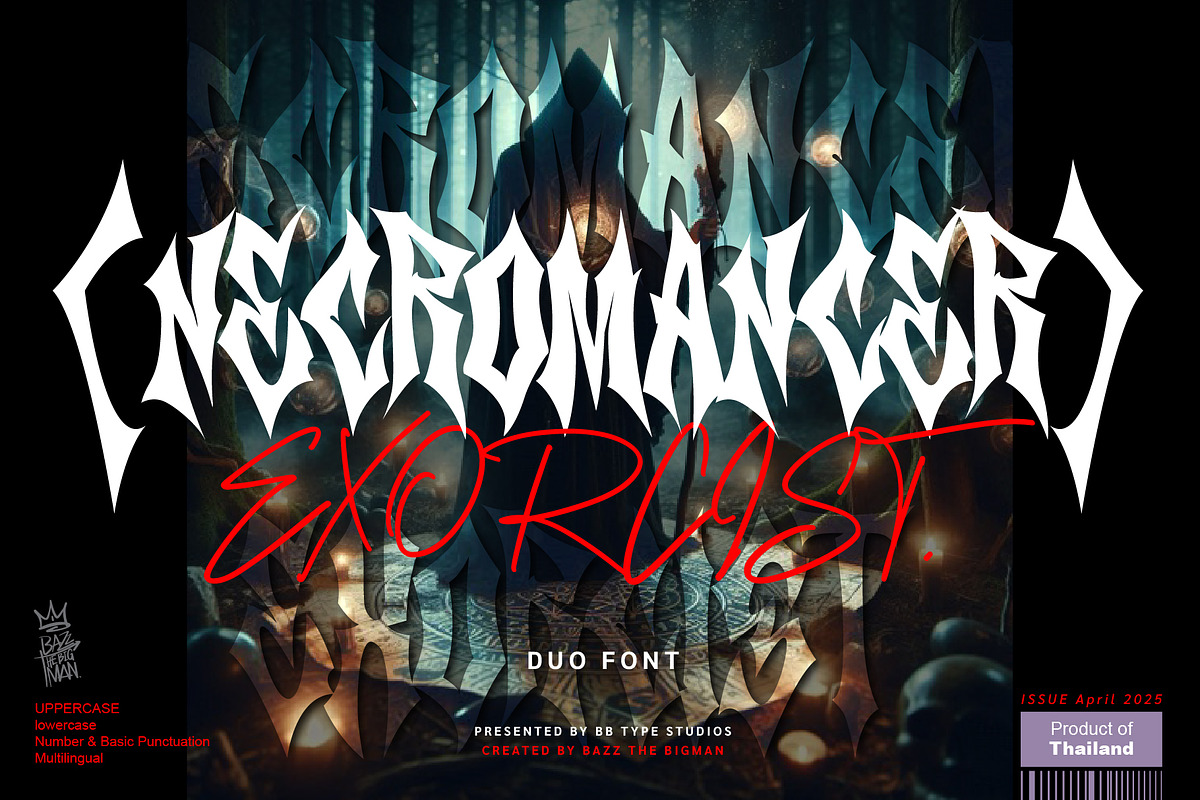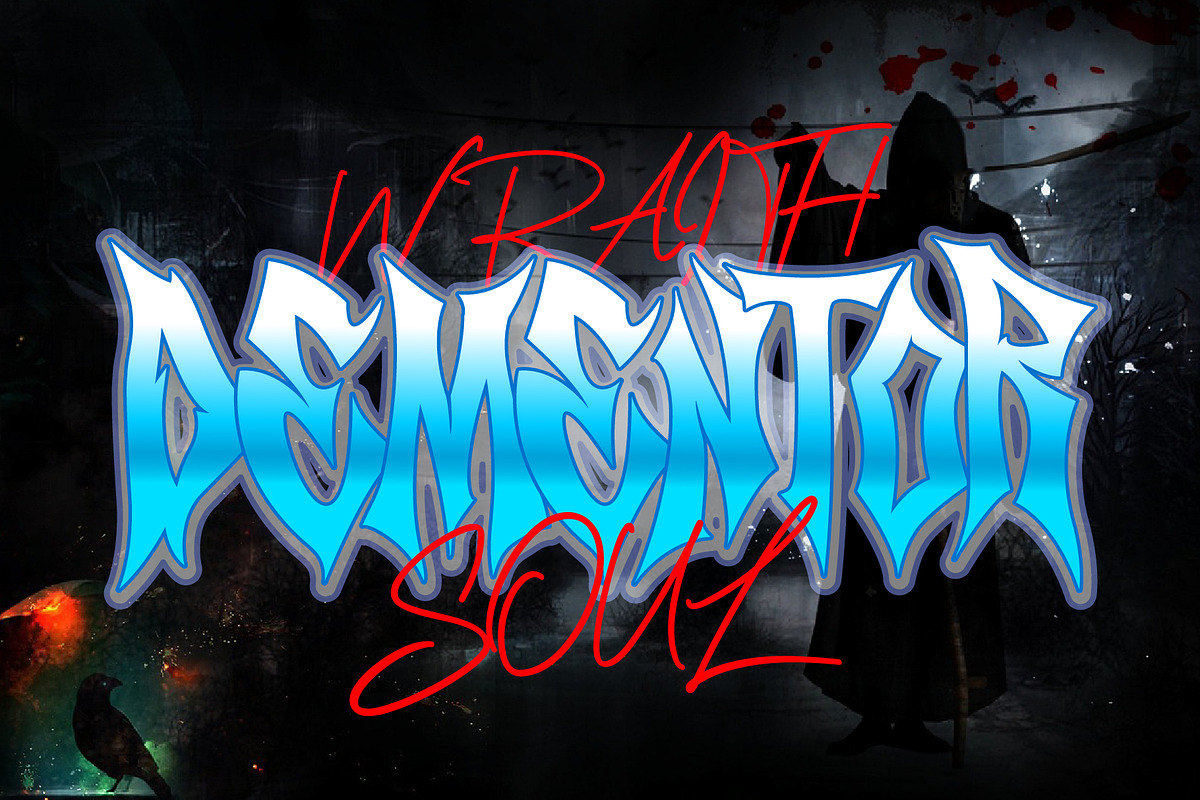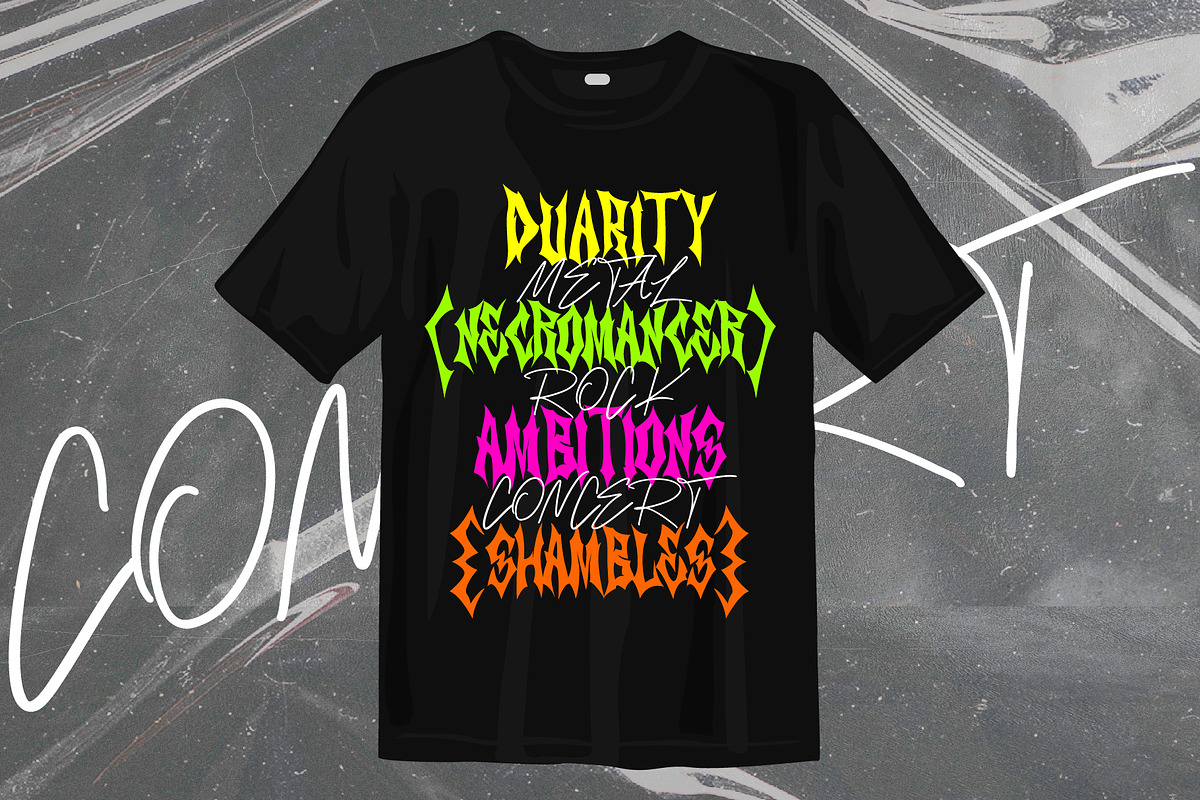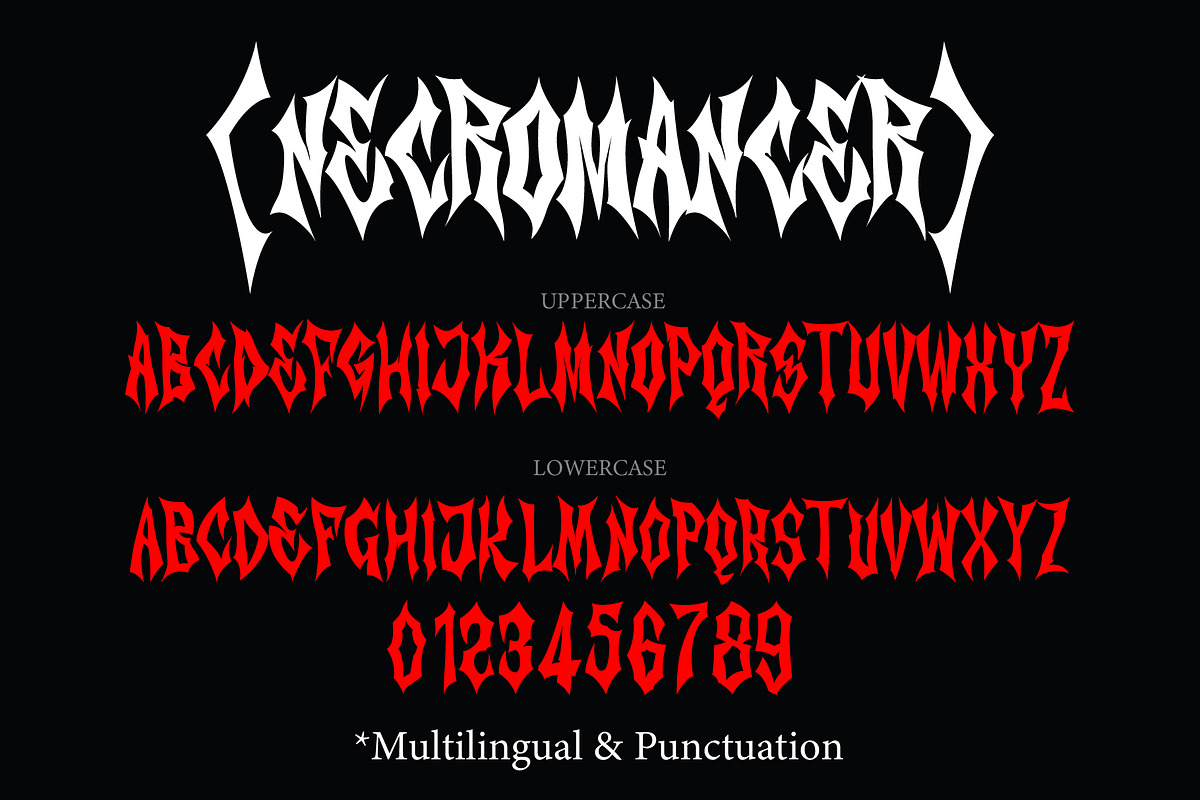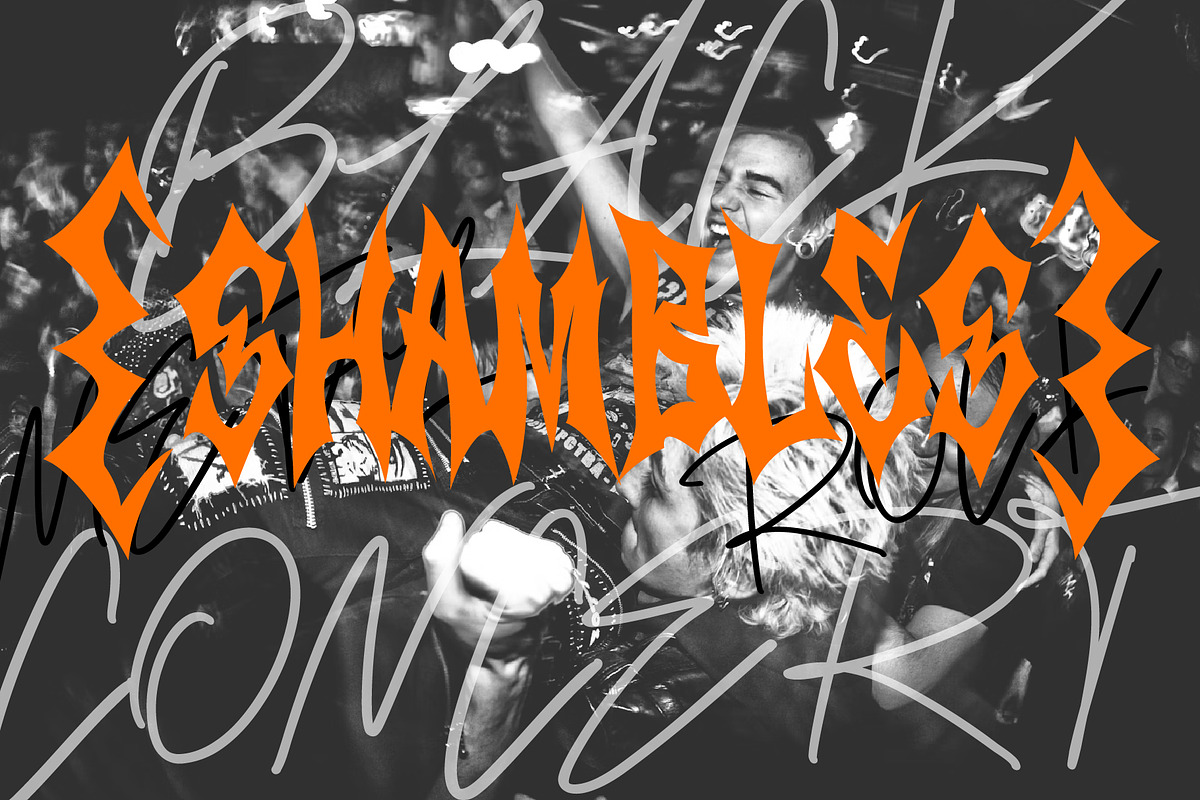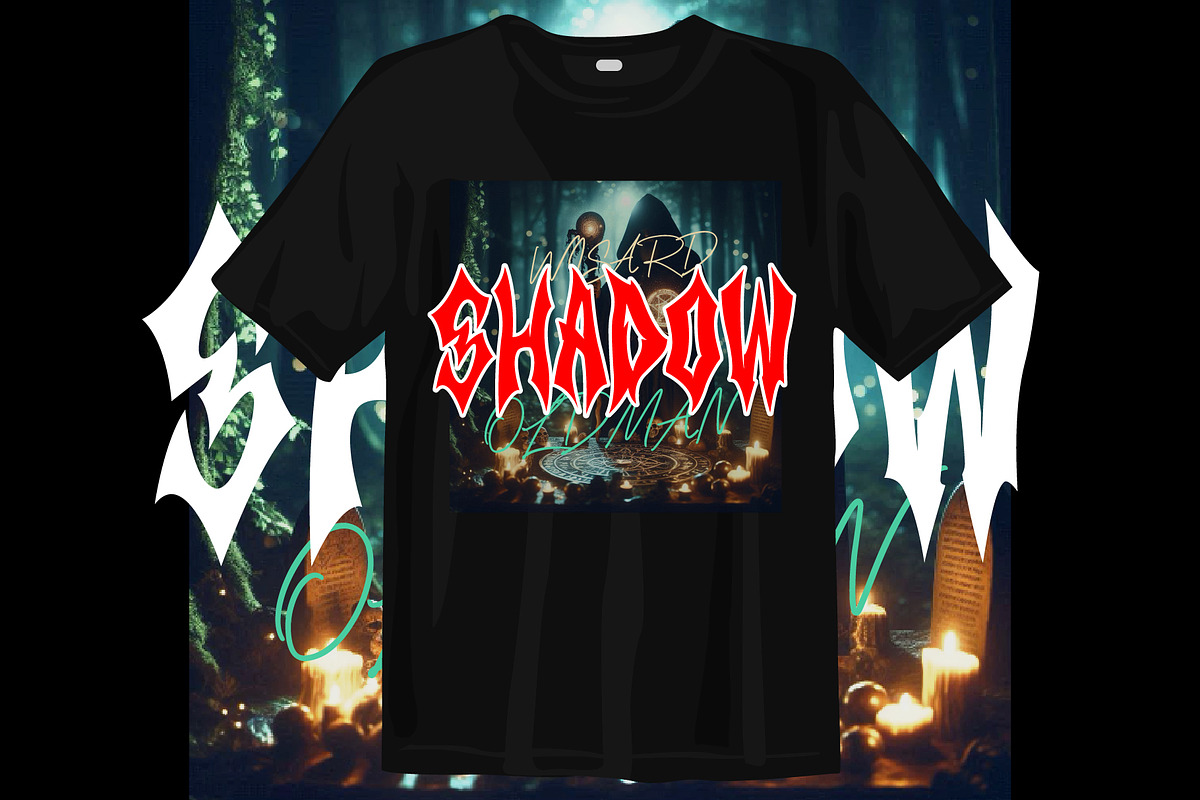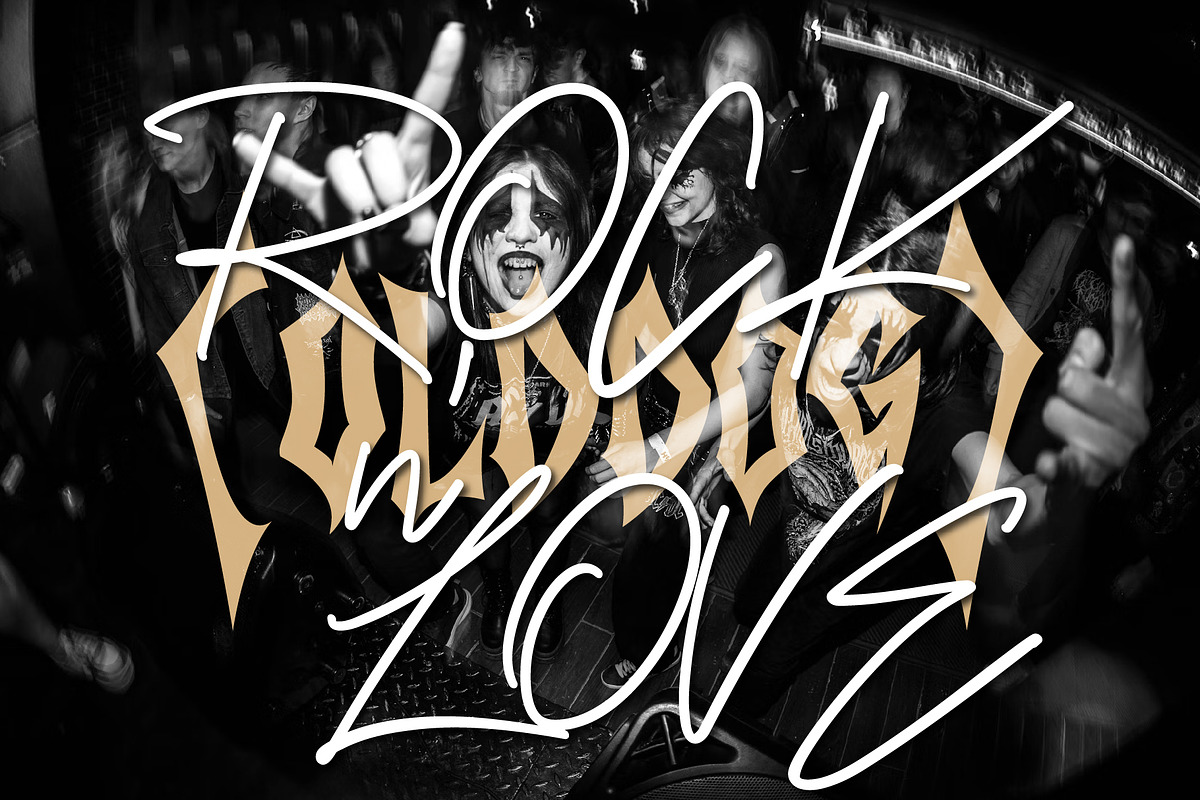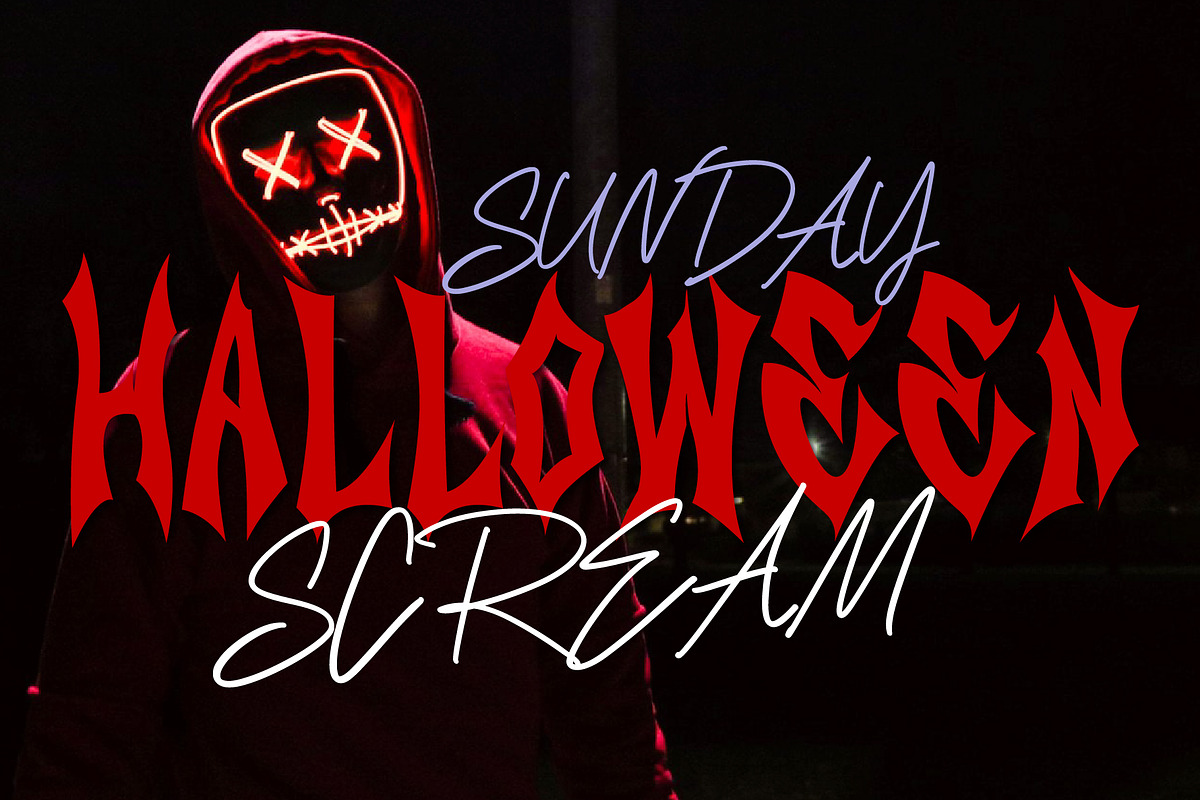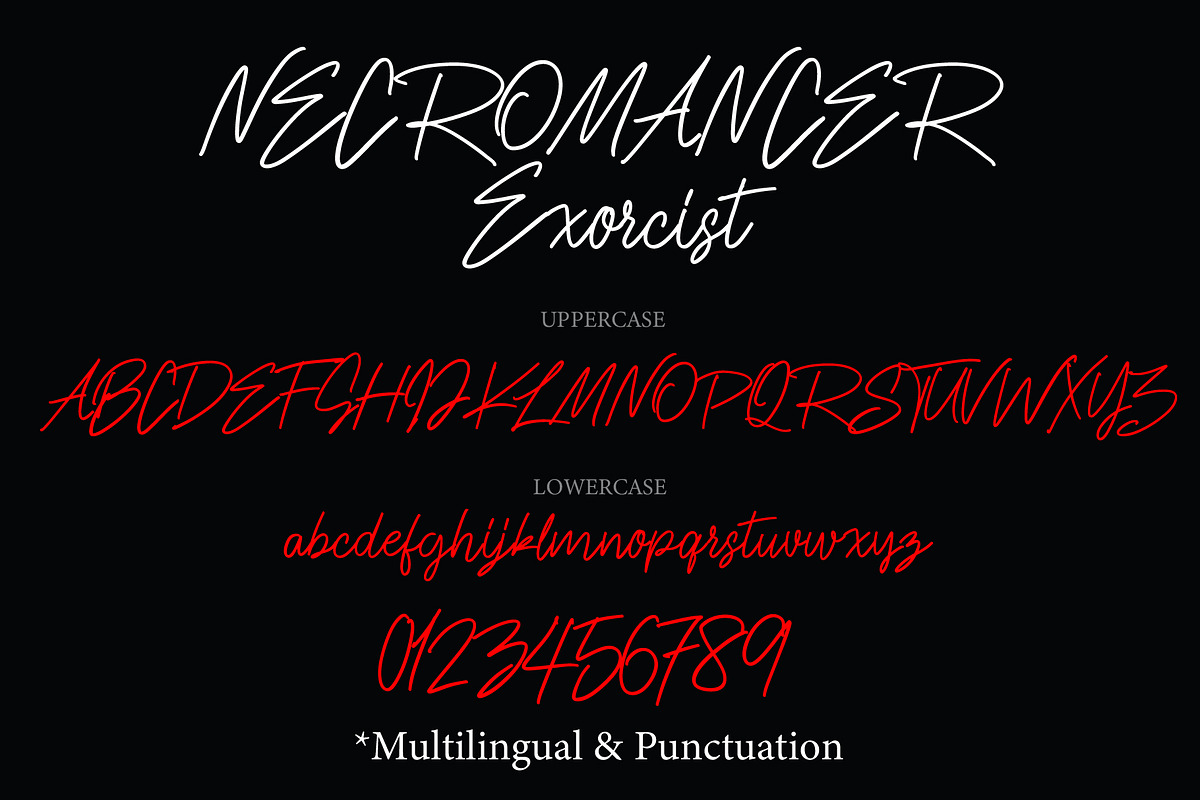
Necromancer Exorcist
Introducing the typeface Duo Font, “Necromancer & Necromancer Exorcist.” Crafted with an undercurrent of arcane allure and drenched in occult essence, these two distinctive styles interplay to create a striking visual dialectic.
“Necromancer” is a daring, serrated display font that is ignited by black metal aesthetics and ancient, shadowy rites. With its keen-edged serifs and fierce symmetry, this font boldly voices a hauntingly macabre resonance. It effortlessly imbues titles, logos and designs with a stimulating surge of the morose, making it a perfect match for Black Metal and Rock music artwork. Channeling the raw might and sombre ambiance intrinsic to these genres, Necromancer harnesses the potent fumes of the underworld.
“Necromancer Exorcist” is a handwritten cipher, sparked with wild brushes and untamed energy. Drenched in asserts of red, it exudes a frantic, frenzied aura – a memento of an ill-fated ritual gone awry. This font amplifies drama, rebellion, and intensity, making it ideal for song titles, tour posters, and expressive overlays that shriek a rebel yell.
In the intriguing juxtaposition of the controlled Necromancer and the chaotic Exorcist, a harmonious graphic interplay between mortality and resurrection is painted – embodying the ancient tussle between evocation and exorcism. An unparalleled choice for musicians, bands, and designers in the realms of Black Metal, Gothic, Doom, and Hard Rock, the “Necromancer & Necromancer Exorcist” font duo champions an aesthetic narrative of the gothic and the defiant.